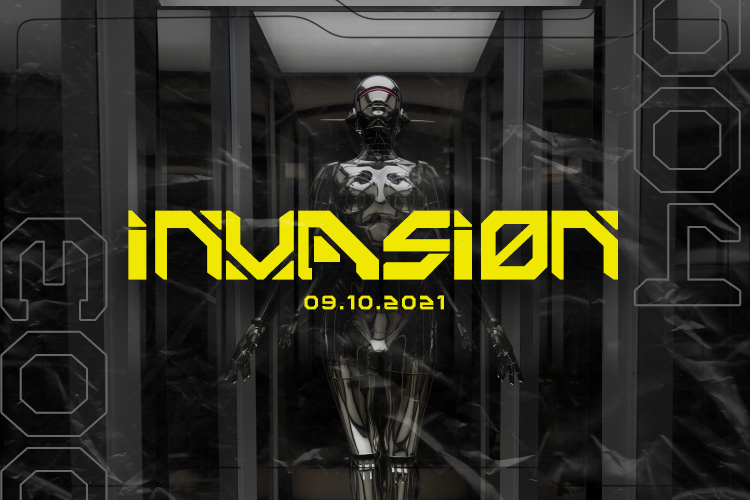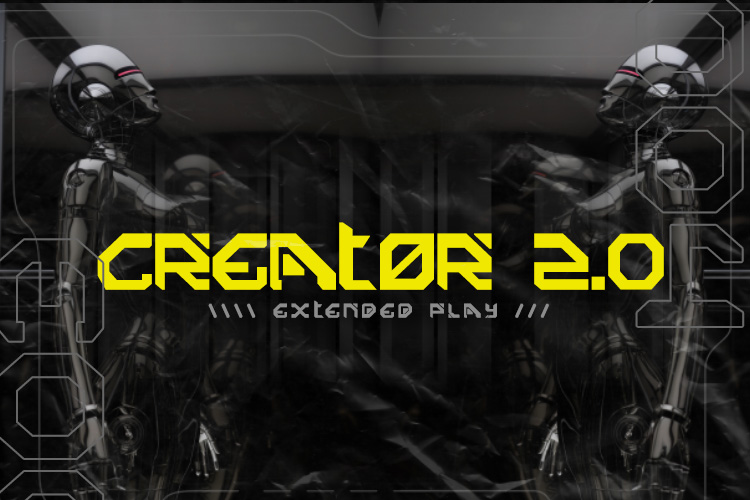
Eternal Font
Eternal Display Font
This is Futuristic typeface which was created to bring a futuristic style, Electronic Robot and uniqe in any design. Bold letters looks Edge & Power full. It’s perfectly for Cover album music , Movie poster , Merchandise product design, Games with fun style like cyberpunk.
where used Eternal font for graphic cover with robotic themes, so you can see how it works.